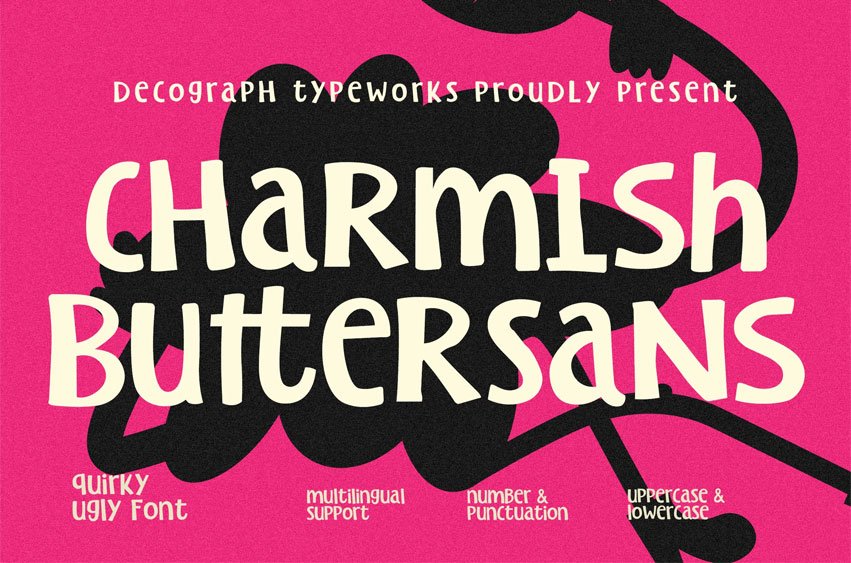
Charmish Buttersans Font Sans Quirky Display Font is a playful typeface designed with irregular shapes and soft rounded forms. Its imperfect structure and uneven rhythm create a fun, expressive personality that feels charming and full of character. The bold yet friendly design makes it highly readable while maintaining a unique handmade look.
Perfect for creative and unconventional projects, this font brings a lively and cheerful tone to any design. Whether used for branding, posters, packaging, or social media graphics, Charmish Butter Sans delivers a quirky visual style that stands out instantly.
Font Features: Uppercase Letters Lowercase Letters Numbers And Punctuation Multilingual Support Irregular Letterforms Rounded Friendly Shapes